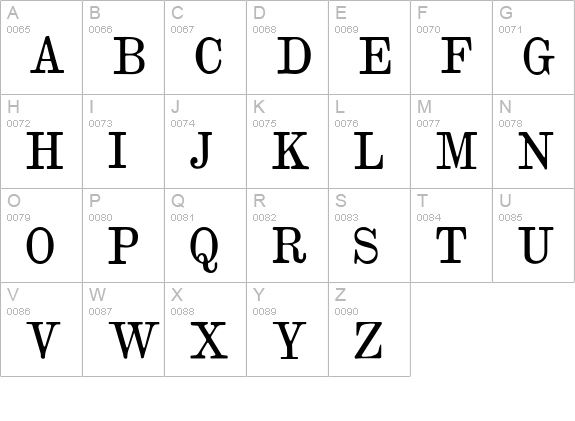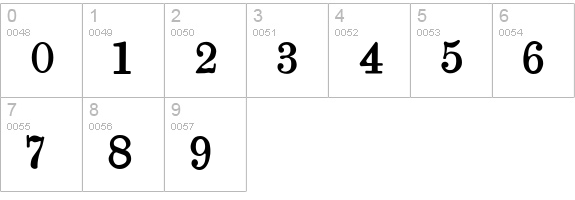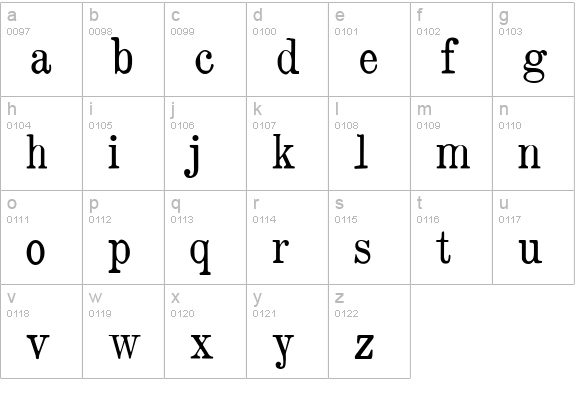
Brokgauz & Efron Font Details
Brokgauz & Efron font is a stunning and versatile typeface that exudes elegance and sophistication. This font is perfect for a wide range of design projects, from branding to editorial design. With its classic yet modern aesthetic, Brokgauz & Efron font brings a touch of timeless beauty to any design. What makes Brokgauz & Efron font even more appealing is that it is available for free download at FontsMarket.com. This means that you can start using this exquisite font in your projects without any cost. Whether you are a professional designer or a hobbyist looking to elevate your creations, Brokgauz & Efron font is a fantastic choice that won't break the bank. Don't miss out on the opportunity to enhance your designs with the elegance and charm of Brokgauz & Efron font. Download it for free today at FontsMarket.com and add a touch of sophistication to your next project.